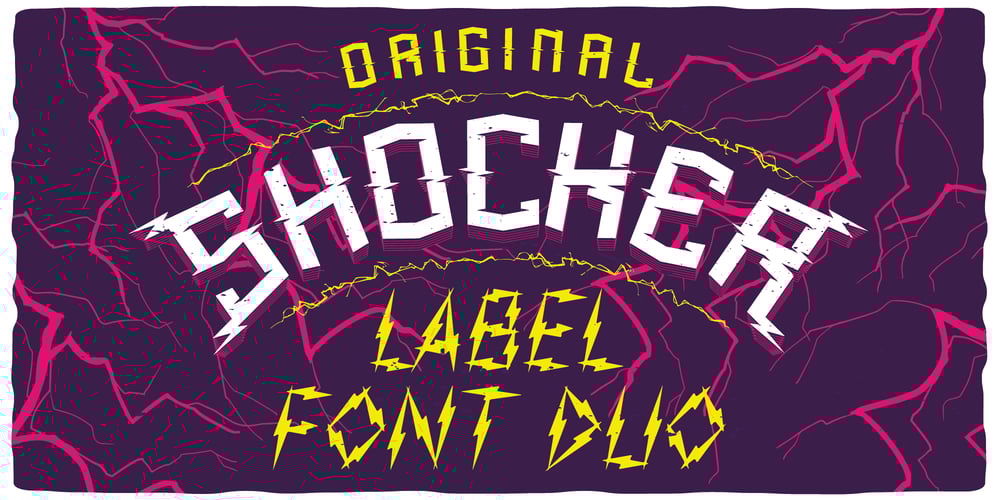
Shocker Font Family was designed by Oleg Voznyy and published by Vozzy. Shocker contains 3 styles and family package options. Introducing original label font named Shocker. This font has a multilungual characters support (check out all available characters on previews). The font family has three styles: Regular, Rough and Lightning. This font will look good on any designs like a poster, T-shirt, label, logo, etc.